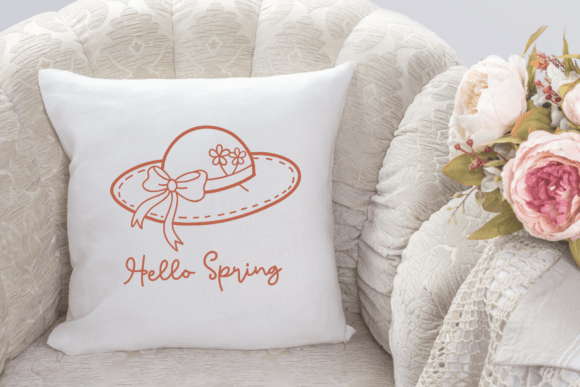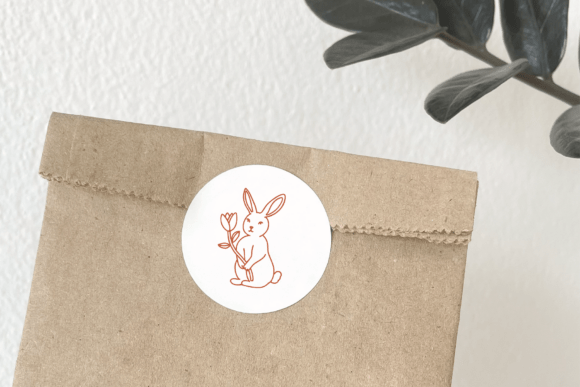
Spring Doodle Font
Spring Doodle Dingbat font joy with this hand-drawn breath of fresh air doodles that is perfect for all your Easter and springtime creations. Add blossoming cuteness to all your projects like cards, programs, posters, scrapbook pages, BINGO cards, or your merch designs.